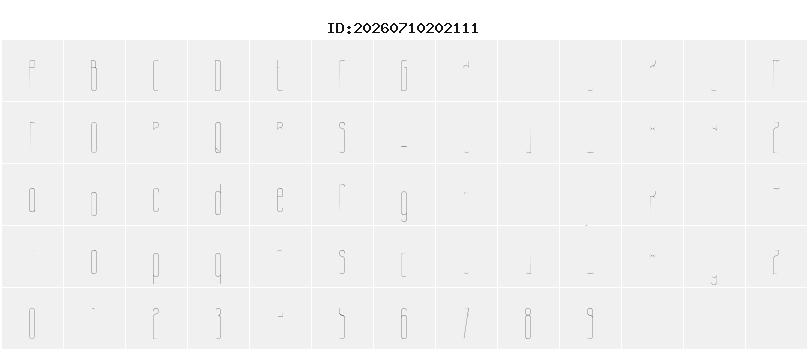
Galacticastle Preview
• Font Name: Galacticastle
• Font Style: Light
• Full Font Name: Galacticastle Regular
• Designer: Viktor Hammarberg
About Galacticastle.ttf
Galacticastle.ttf is a modern, elegant sans-serif font designed for ultimate readability and visual harmony. Perfect for branding, headlines, web design, and print materials.